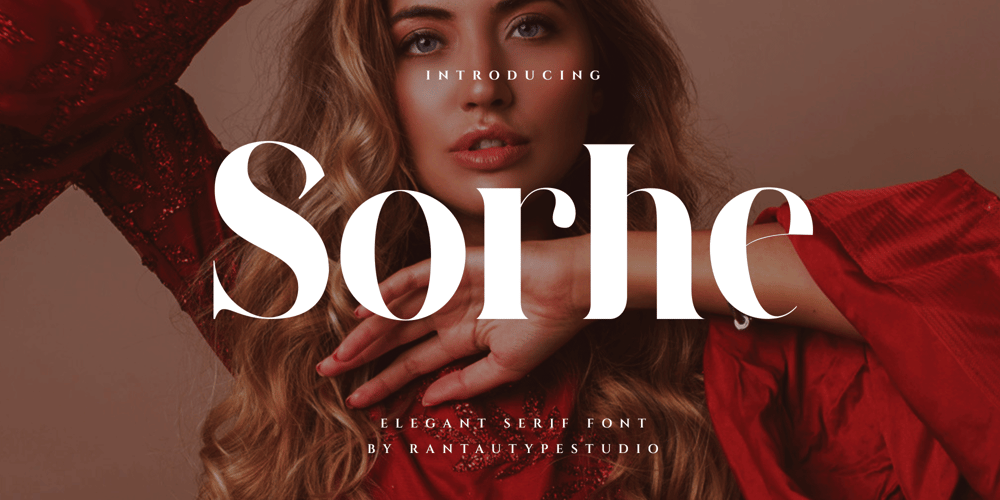
Sorhe
Sorhe font
Sorhe Font Family was designed by Yudi Pratama Chandra and published by RantauType. Sorhe contains 4 styles and family package options. Sorhe is elegant serif font. Sorhe have 4 font reguler, reguler italic, bold and bold italic. Many professional brands that need an elegant logo, that’s why I made this font. Sorhe is perfect for BRANDING and LOGO DESIGN . You will get classy, elegant, and certainly unique logos with this font. Sorhe here to make your brand to high level!!!Features 4 Font Standar letter A-Z and a-z Numberial and Functional Works on PC & Mac Simple installations Accessible in Adobe Illustrator, Adobe Photoshop, Adobe InDesign, even work on Microsoft Word. Thank you for your purchase!Hope you enjoy with our font!